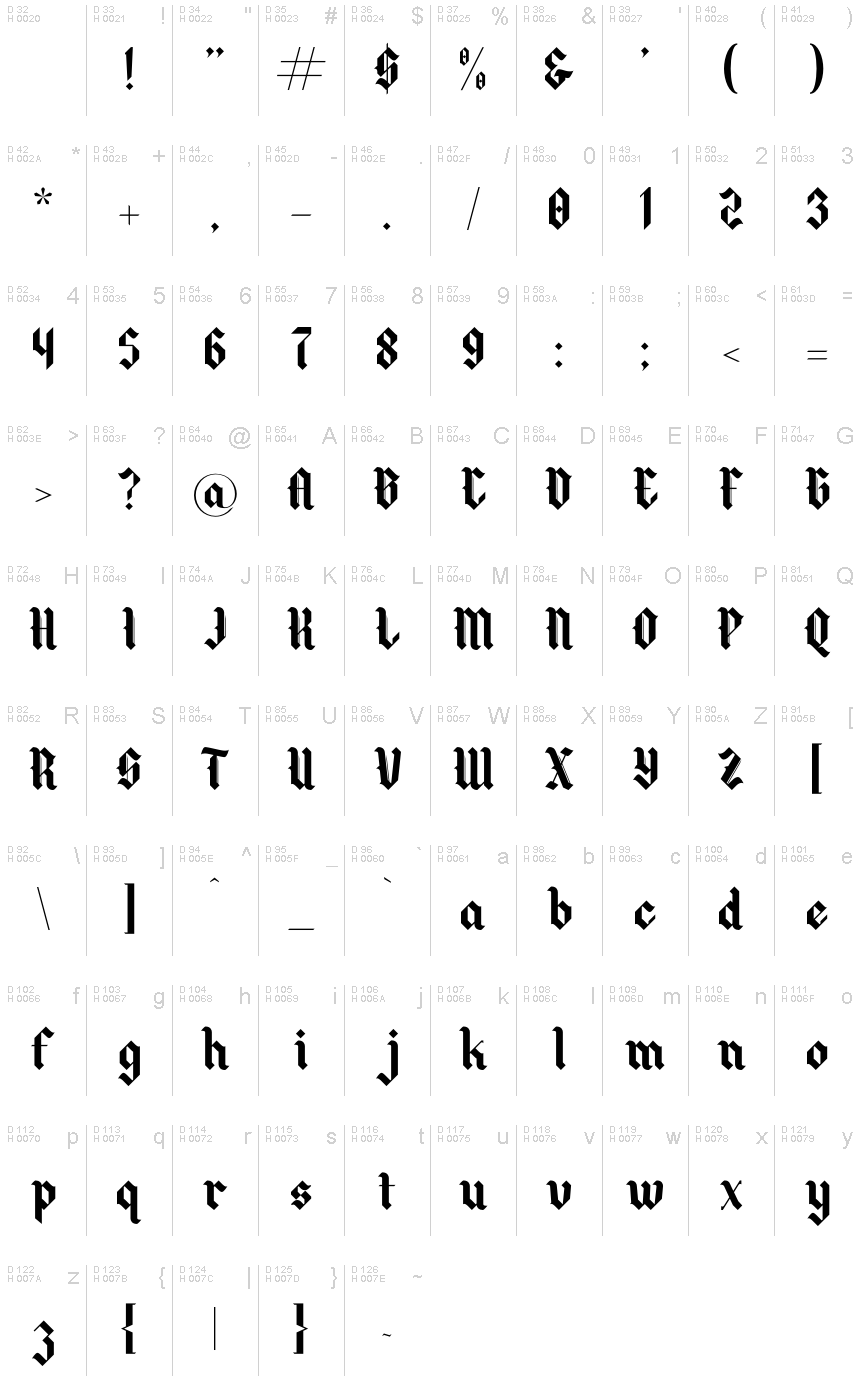
BLACKING
Blacking, a modern gothic font designed by Storytype Studio, exudes a captivating blend of elegance and edginess. Its condensed width and sharp, angular serifs create a striking visual presence, lending an air of sophistication and a touch of the avant-garde. This font's unique character can captivate audiences, making it a standout choice for projects seeking to convey a sense of bold, contemporary style.
The Blacking font's versatility allows it to seamlessly adapt to various design applications, from eye-catching headlines and impactful branding to unique packaging and editorial layouts. Its versatility ensures a cohesive and visually compelling aesthetic, elevating any project that embraces its distinctive character.